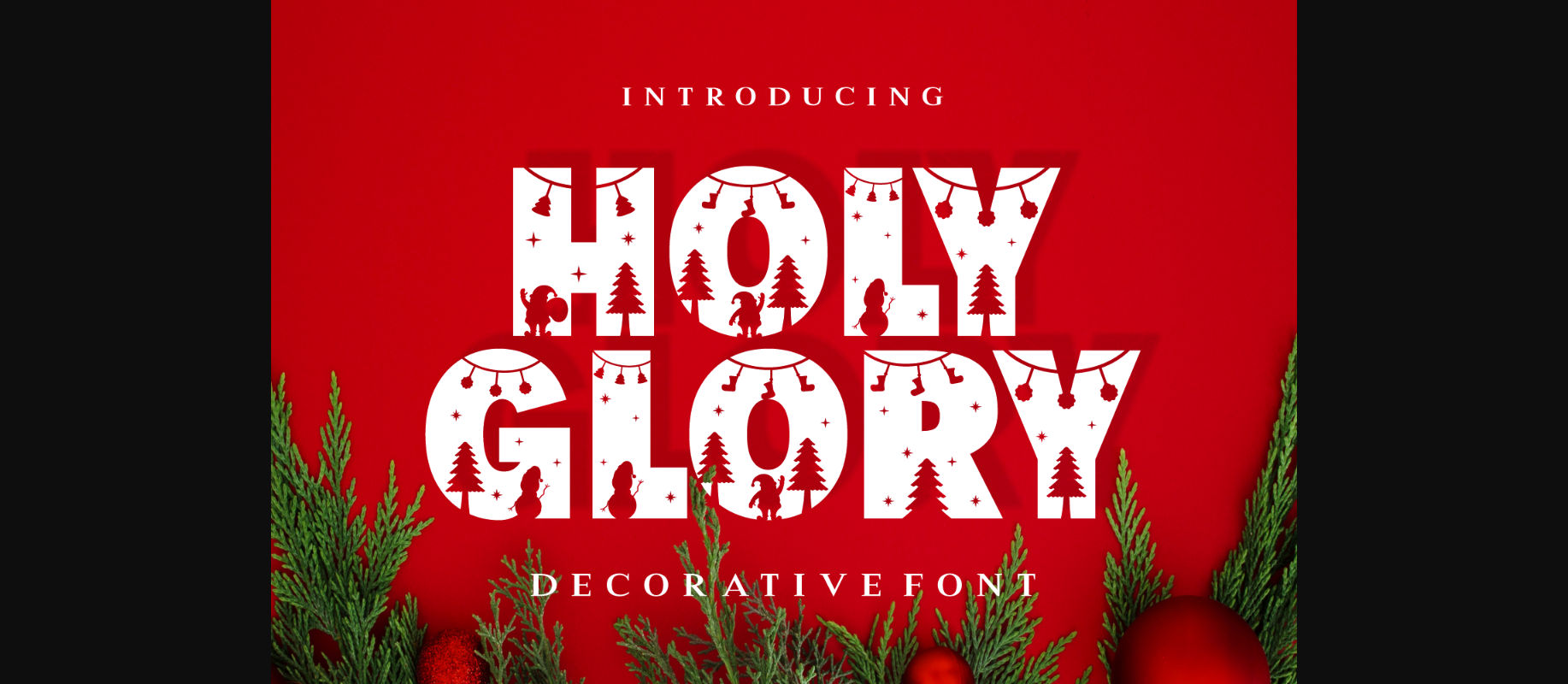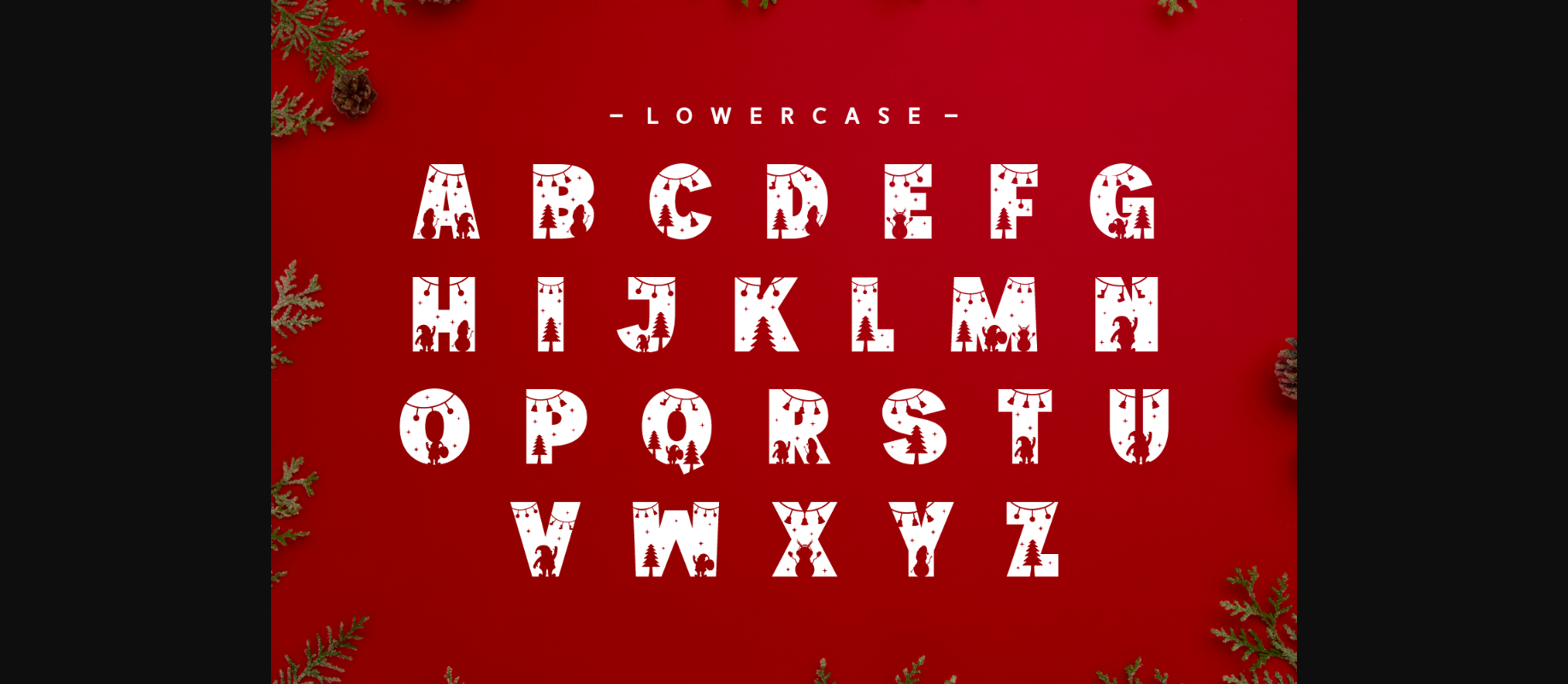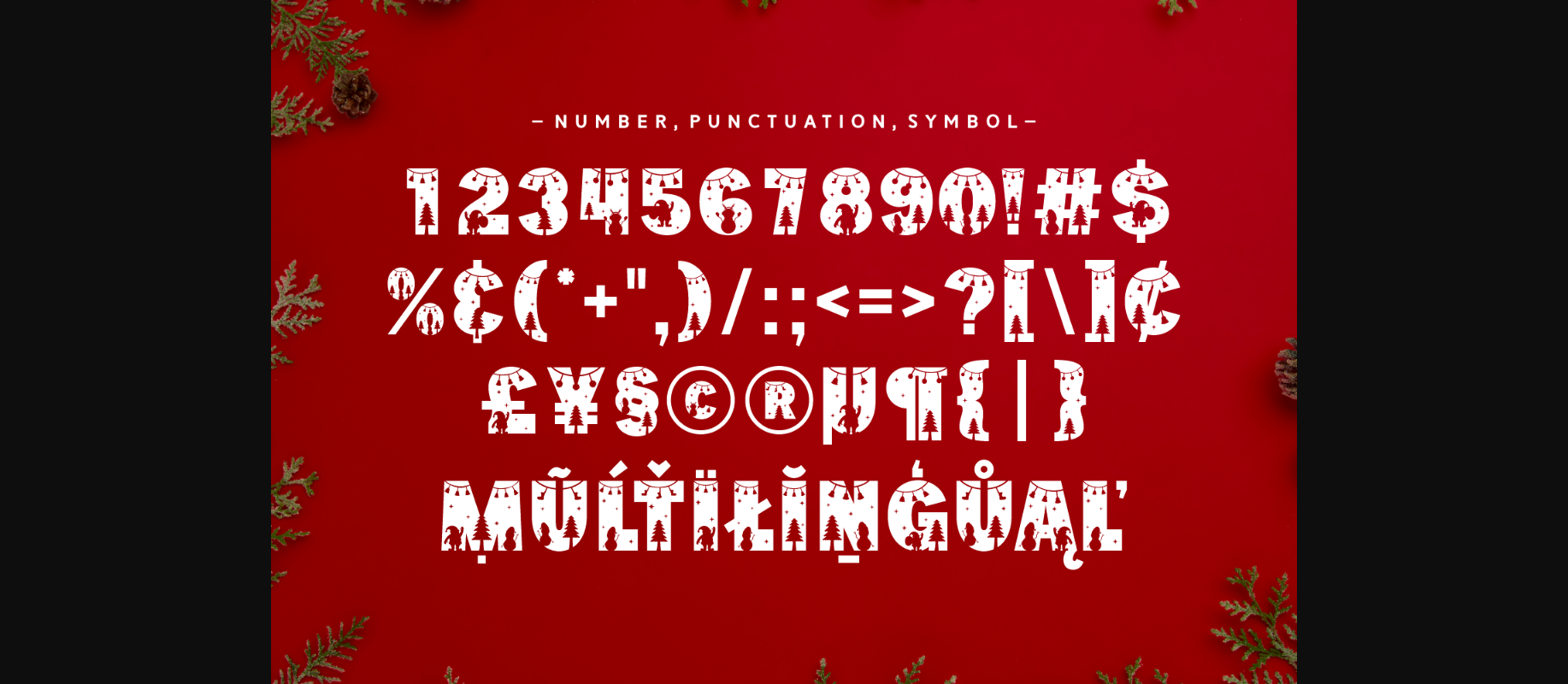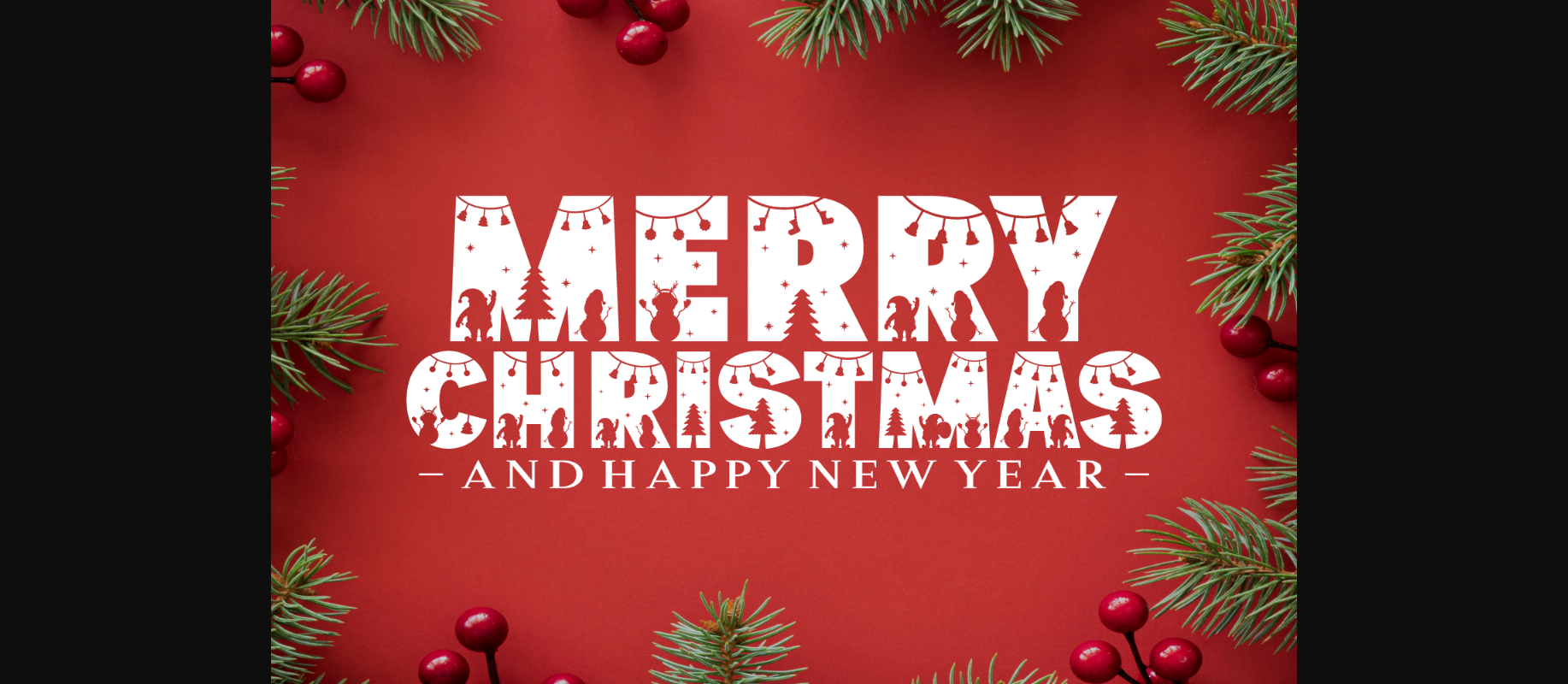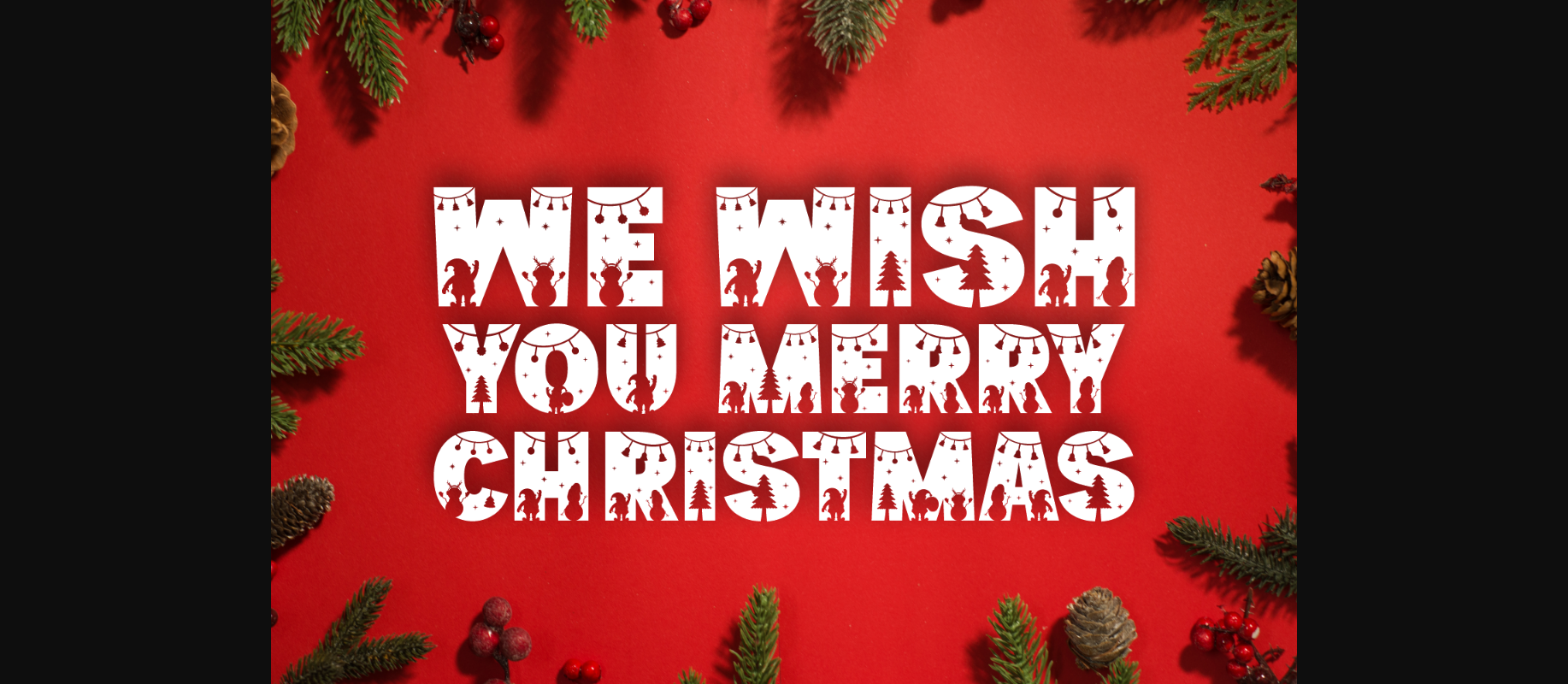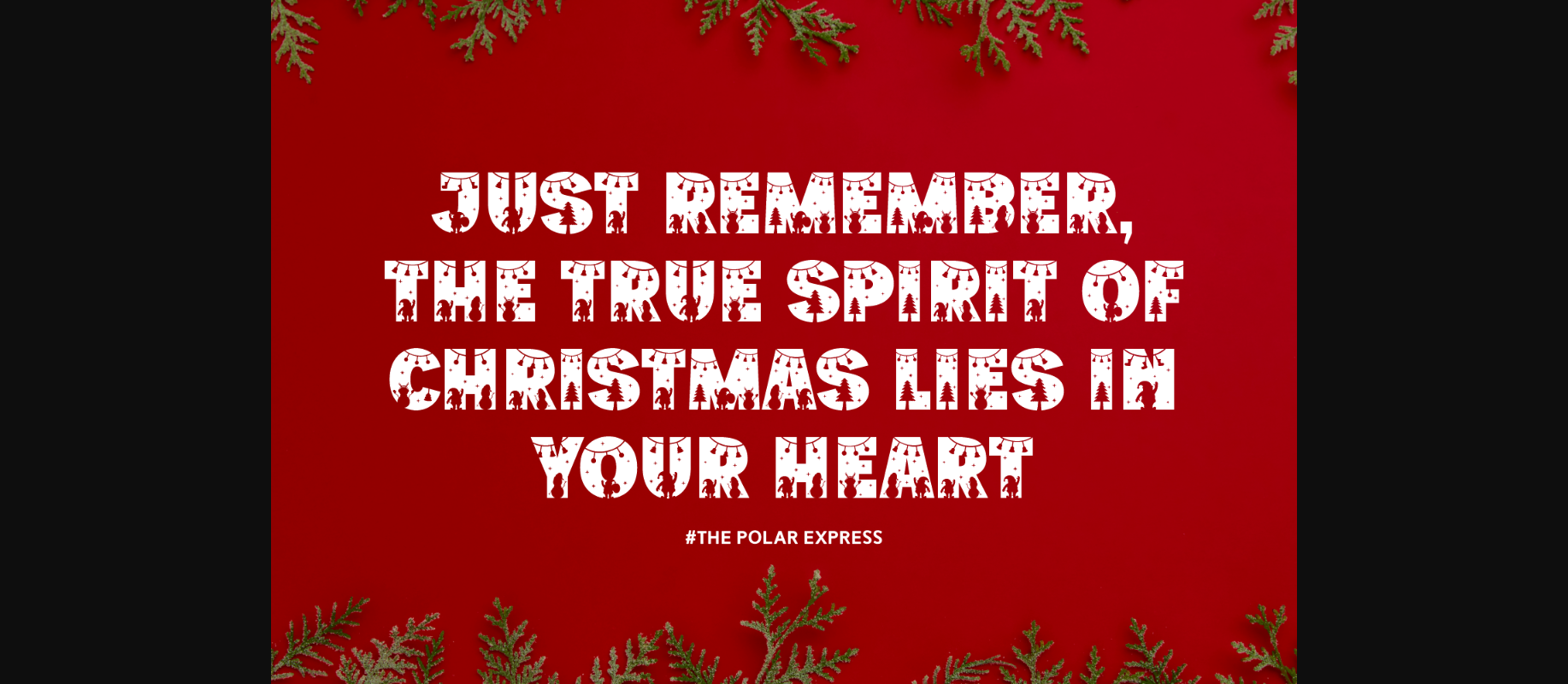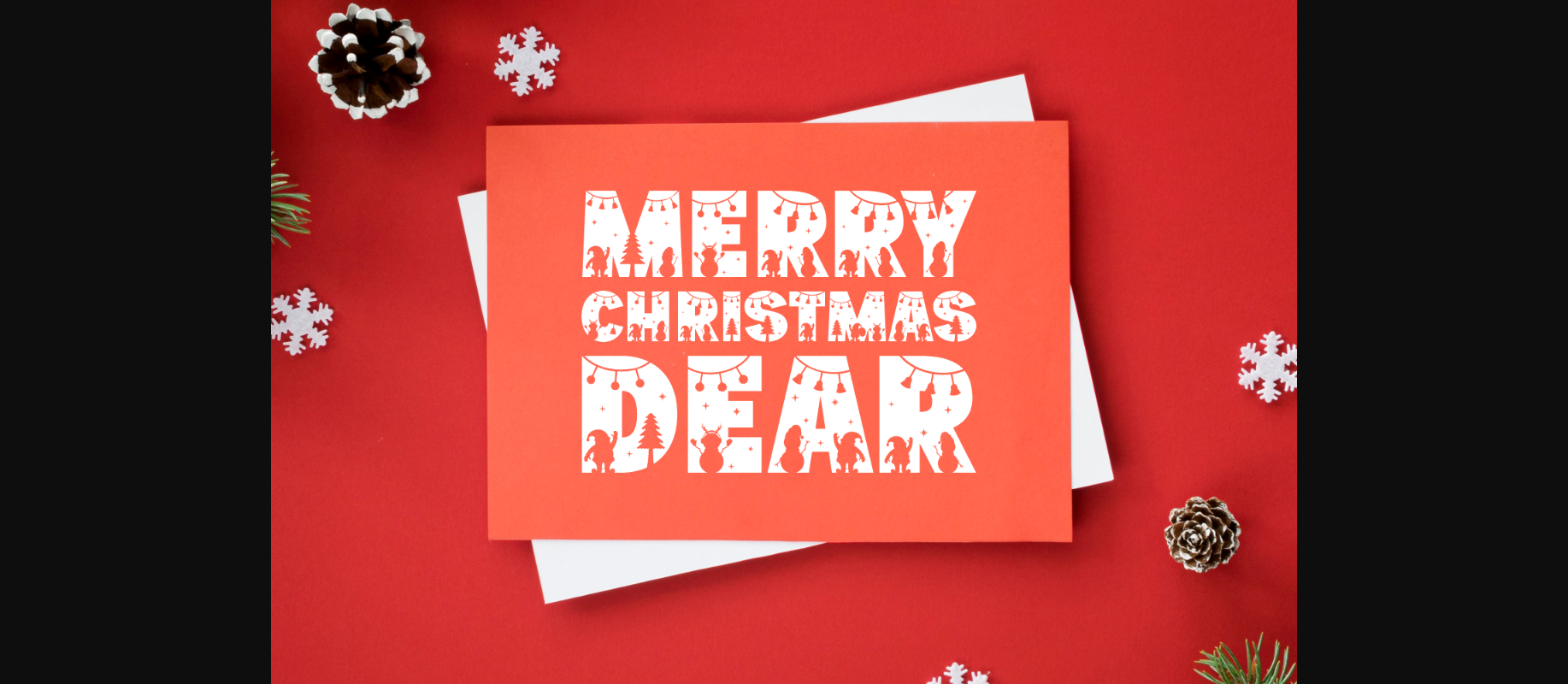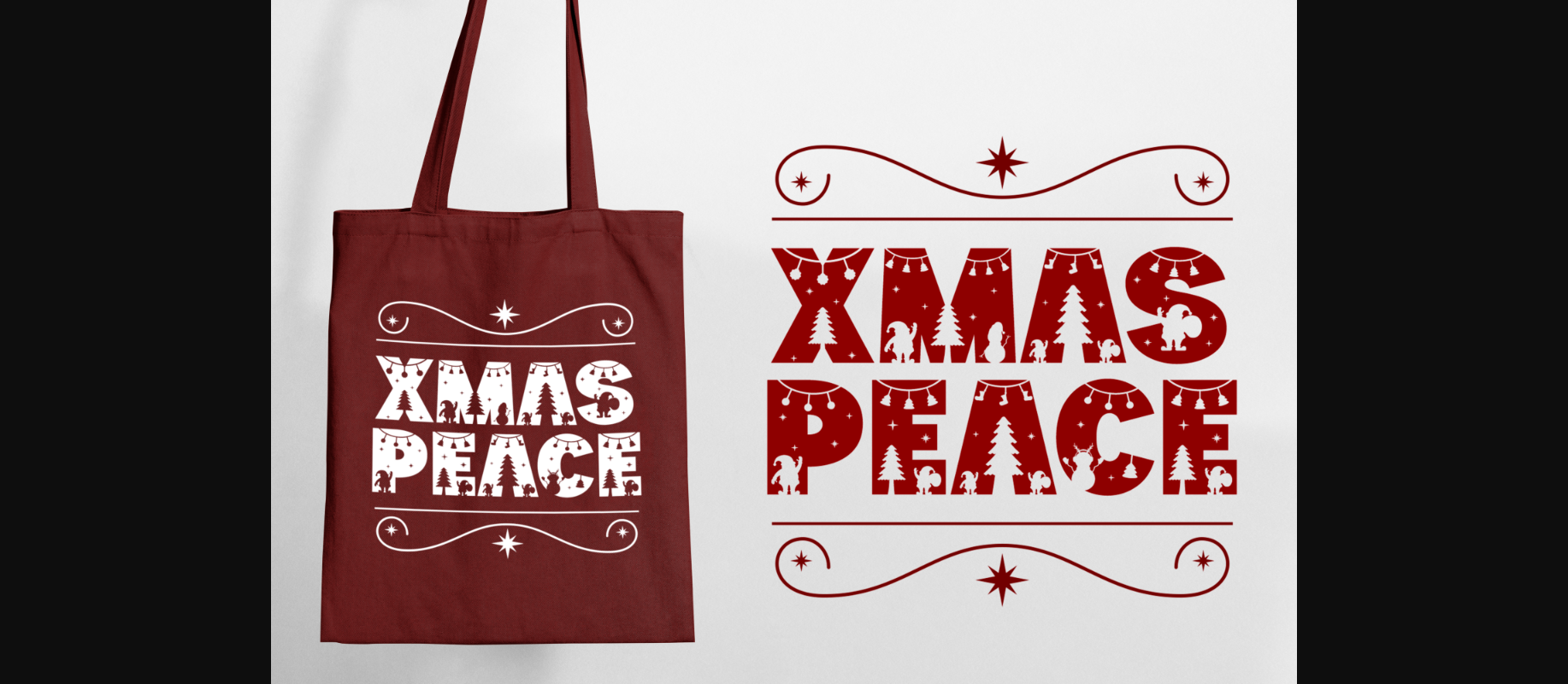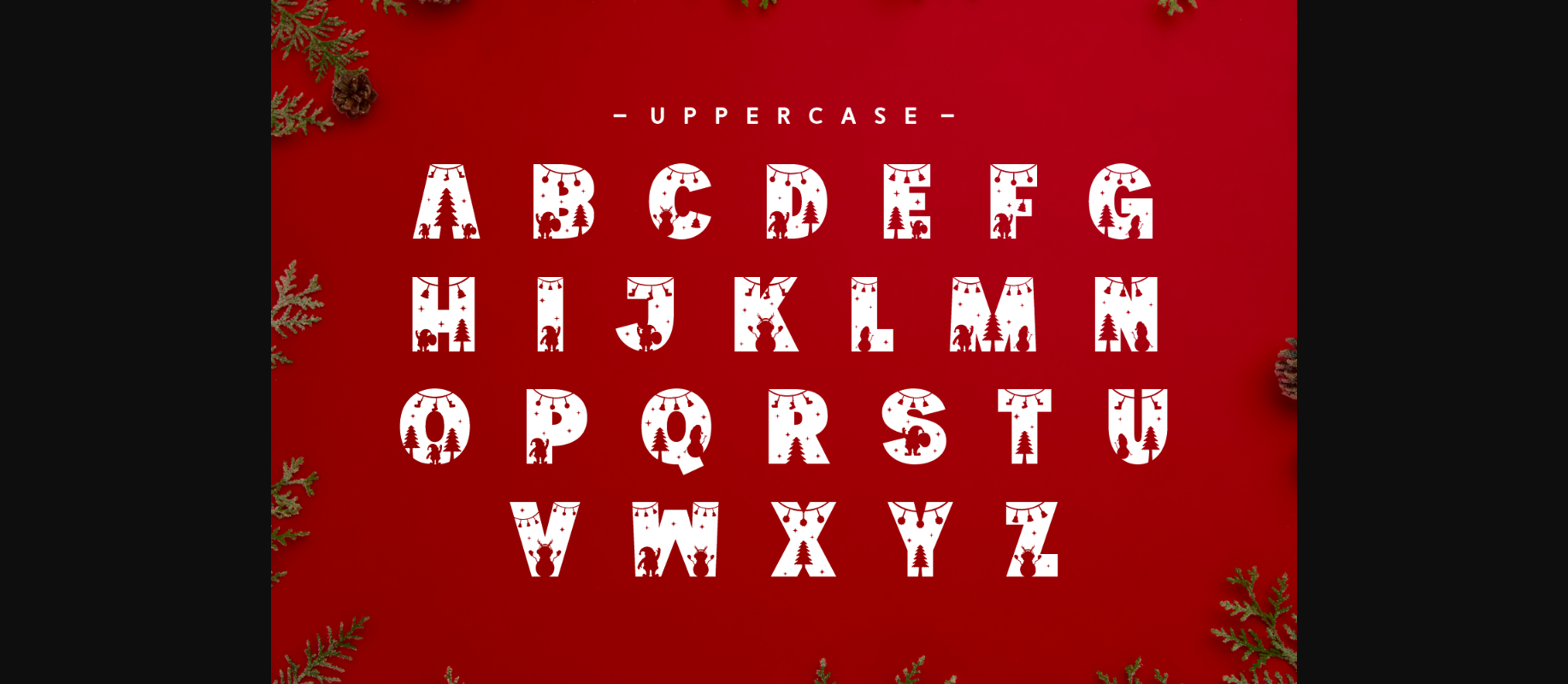
Holy Glory is a charming display of Christmas spirit, where festive elements are creatively cut out within the letters to add a vintage touch to your holiday decorations.